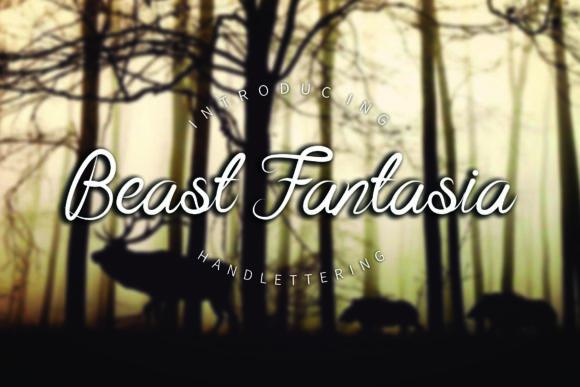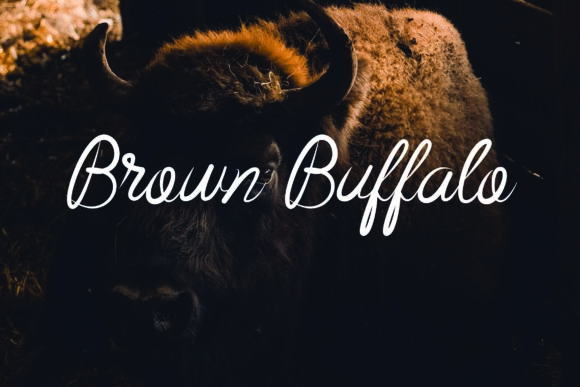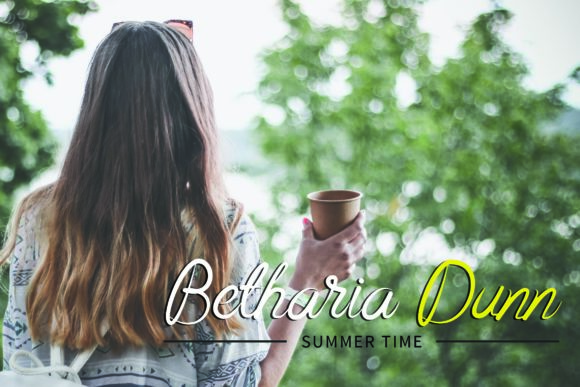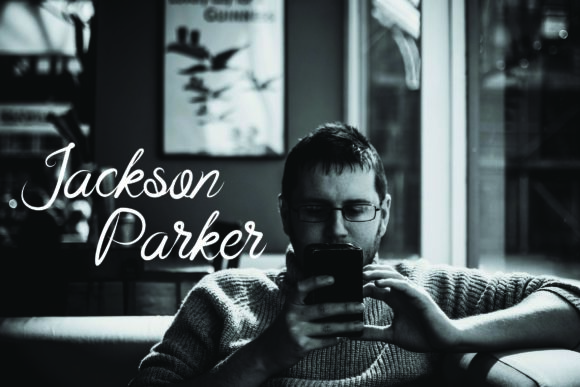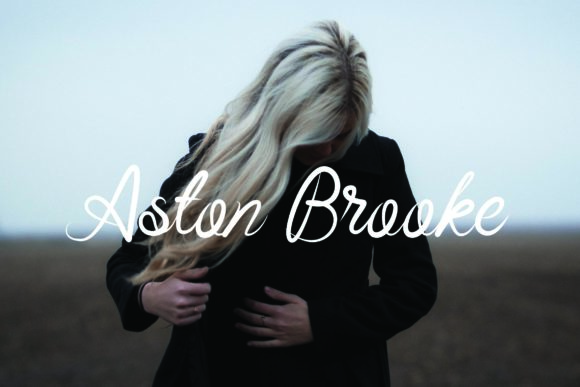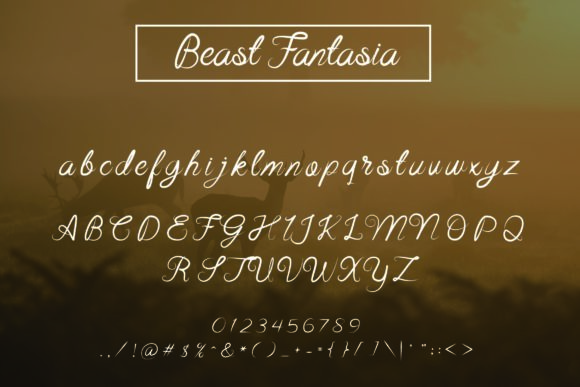
Beast Fantasia Font
About Beast Fantasia Font
The Beast Fantasia is a modern script font. It has a simple, yet classy style which will add a strong and unique style to your designs.
It’s perfect for photography, signature, branding, magazines, logos,and much more!